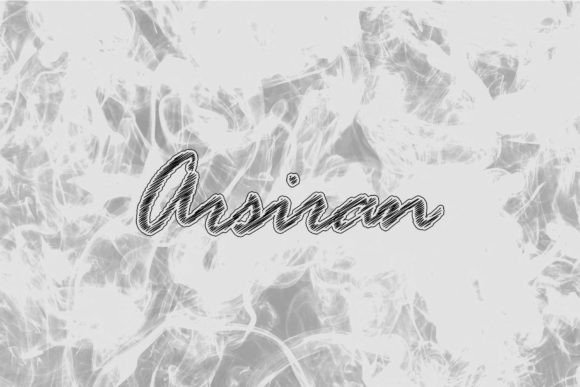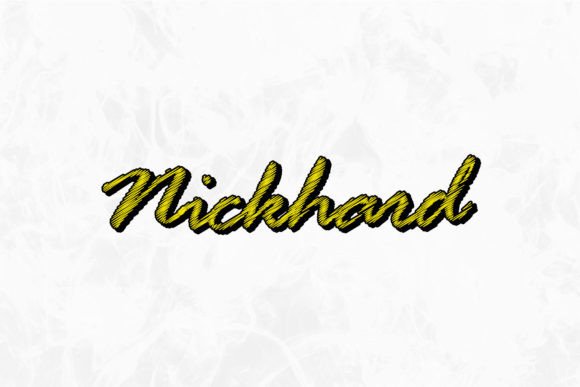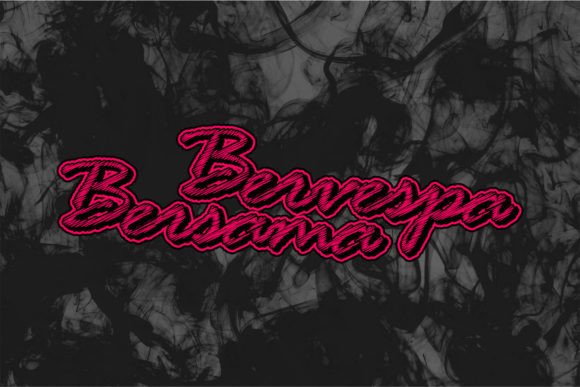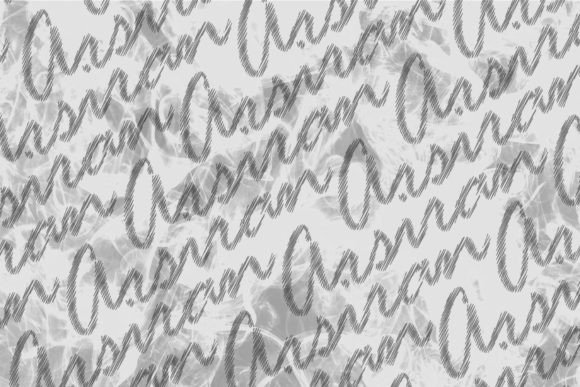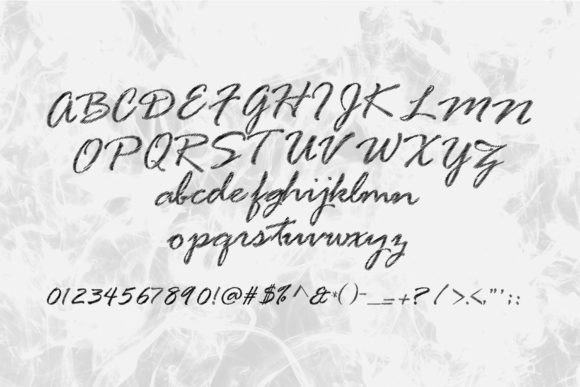
Discover the Charm of Arsiran Font: A Unique Blend of Delicacy and Rawness
In the world of typography, few fonts manage to strike a balance between delicacy and rawness. However, the Arsiran font is a standout creation that effortlessly merges these seemingly contrasting elements. This chalky script font is a captivating addition to any design, offering a distinctive blend of elegance and vintage charm.
The Distinctive Texture of Arsiran Font
One of the most striking features of the Arsiran font is its textured appearance. This characteristic gives the font a charming, vintage appeal that is hard to resist. The texture adds a layer of depth and visual interest to any design, making it perfect for projects that require a touch of nostalgia or a dash of personality.
Fine Strokes and Curves: The Elegance of Arsiran
While the textured appearance of Arsiran font gives it a raw, organic feel, its fine strokes and curves exude elegance and refinement. The font’s delicate lines and curves create a sense of sophistication, making it suitable for designs that require a touch of luxury or high-end appeal.
Adding Character and Personality to Your Design
The Arsiran font is more than just a typographical creation – it’s a design element that can add character and personality to any project. Whether you’re working on a logo, a poster, or a website, this font can help you create a unique and captivating visual identity.
Why Designers and Crafters Love Arsiran Font
Designers and crafters are drawn to the Arsiran font for several reasons:
- Uniqueness: The font’s textured appearance and delicate strokes make it a standout in any design.
- Versatility: Arsiran font can be used in a wide range of projects, from logos and posters to websites and social media graphics.
- Elegance: The font’s fine lines and curves add a touch of sophistication to any design.
- Vintage charm: The textured appearance gives the font a charming, vintage appeal that is perfect for designs that require a nostalgic feel.
Tips for Using Arsiran Font Effectively
To get the most out of the Arsiran font, consider the following tips:
- Use it as a headline font: The Arsiran font is perfect for headlines and titles, where its unique texture and elegant strokes can make a big impact.
- Pair it with a simple font: To create visual interest, pair the Arsiran font with a simple, clean font for body text.
- Experiment with colors: The Arsiran font looks great in a range of colors, from bold and bright to muted and pastel.
The Arsiran font is a unique and captivating creation that balances delicacy with a hint of rawness. Its textured appearance, fine strokes, and curves make it a charming and elegant addition to any design. Whether you’re a designer, crafter, or simply someone who appreciates beautiful typography, the Arsiran font is definitely worth exploring.